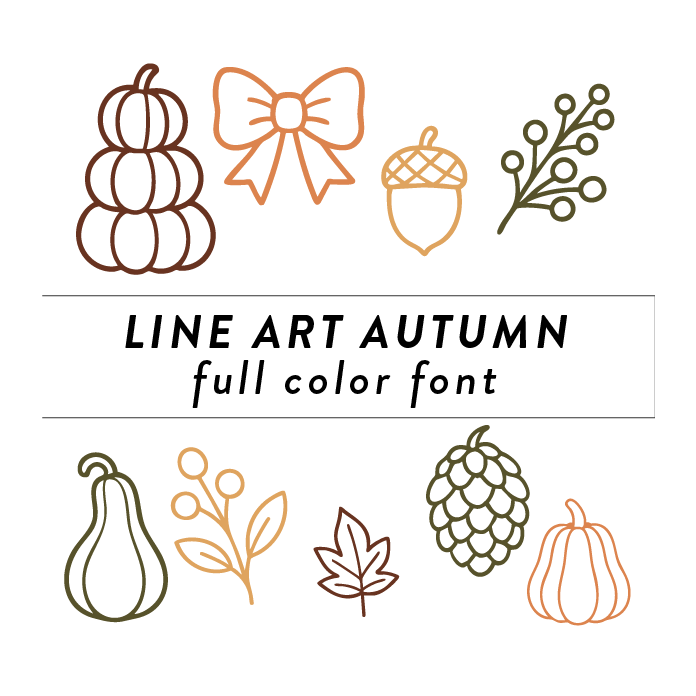
Line Art Autumn Full Color Font is a whimsical and elegant font design inspired by the beauty of autumn trees, branches, and leaves. The font features monoline art detailing with vibrant autumn colors, making it perfect for adding a touch of nature to any DIY project or home decor for Halloween or Thanksgiving.